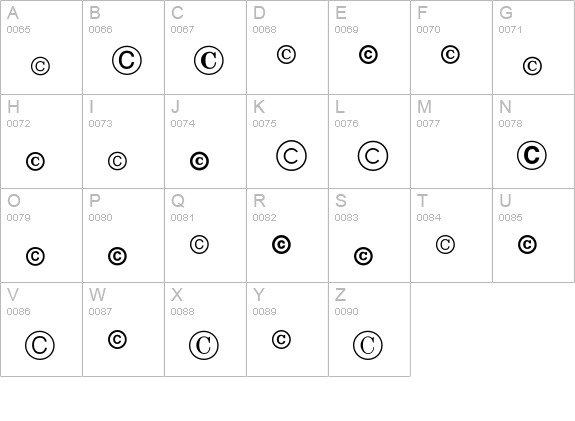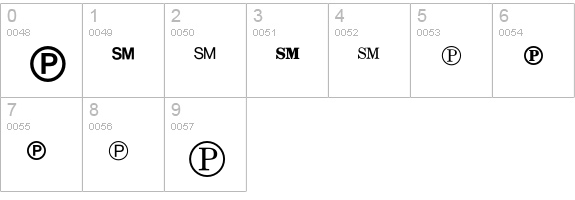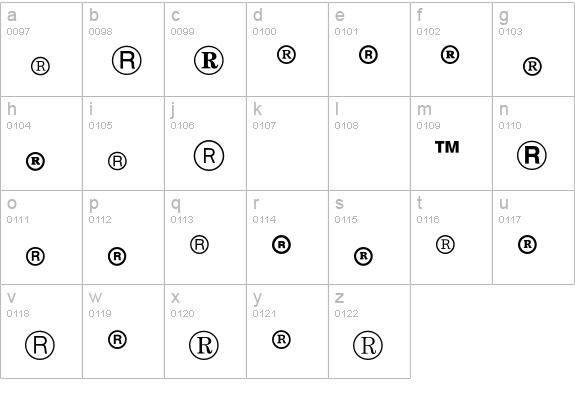
LegalTrademarksP01 Font Details
LegalTrademarksP01 font is a stunning typeface that adds a touch of elegance and professionalism to any design project. With its clean lines and classic shapes, this font is perfect for legal documents, trademarks, and any other materials that require a sophisticated and refined look. Designed by a team of expert typographers, LegalTrademarksP01 font offers a wide range of weights and styles, allowing you to create visually appealing and versatile designs. Whether you're designing logos, business cards, or legal contracts, this font will elevate your work to new heights. One of the best things about LegalTrademarksP01 font is that it is freely available to download at FontsMarket.com. This means that you can access this exceptional font without any cost, making it a perfect choice for designers on a budget or anyone looking to add a touch of professionalism to their work. The characters in LegalTrademarksP01 font are meticulously crafted, ensuring that each letter is perfectly balanced and visually pleasing. The font's proportions and spacing are carefully designed to ensure legibility at both small and large sizes, making it suitable for a variety of applications. Whether you're designing for print or digital media, LegalTrademarksP01 font will help you create a polished and refined look. Its timeless style and versatility make it a valuable asset for any designer or creative professional. In conclusion, LegalTrademarksP01 font is a free, high-quality typeface that is perfect for legal documents, trademarks, and any other materials that require a sophisticated and refined look. With its timeless style and versatility, this font will elevate your designs and help you make a lasting impression. Download this exceptional font today at FontsMarket.com and unleash your creativity.